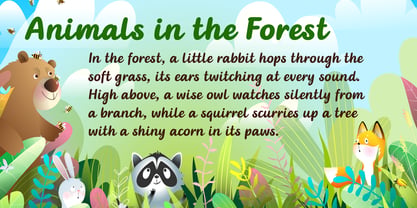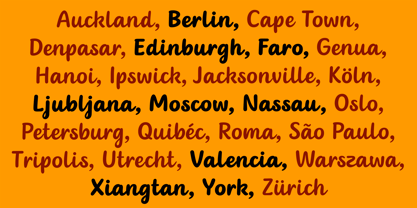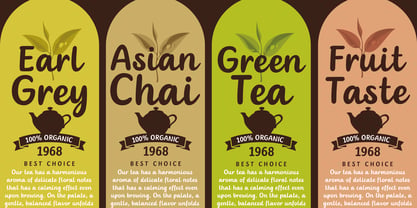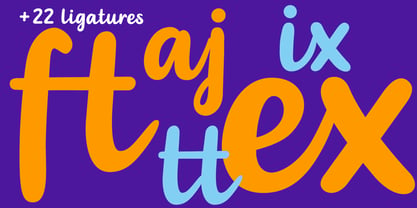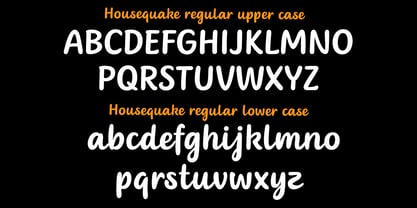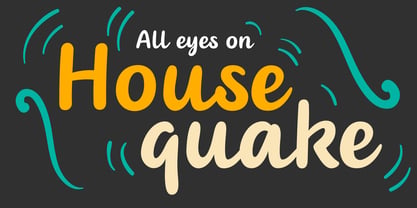
Housequake
The Housequake Font Family was designed by Wolfram Pleger and published by PleasureFonts. Housequake contains 4 styles and family package options. More about this family
This font elegantly combines the flowing elements of a script font with the clarity of a classic print font. The letters appear handwritten, but remain structured and easy to read - ideal for modern designs with a personal touch. Gentle curves and harmonious proportions create a lively typeface that is both professional and inviting. The mixture of organic flow and typographic stability makes this font versatile - from invitations to branding and editorial design.
Wolfram Pleger (aka PleasureFonts) is based in Dusseldorf, Germany. He studied Design at the Hochschule Dusseldorf. After graduation he worked at an packaging design agency. He has been making fonts since 2018, initially inspired by his daughter's handwriting. This font named Charlonka was his first reiease on myfonts. Besides working as a graphic designer he loves making music.